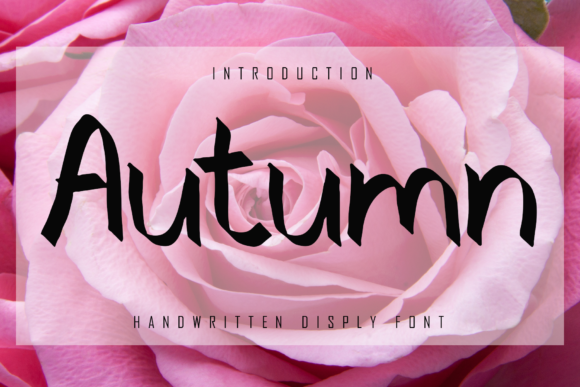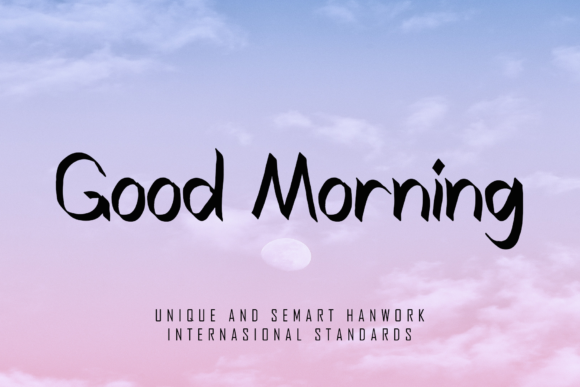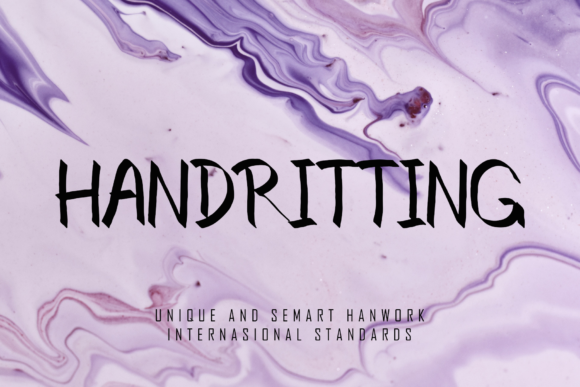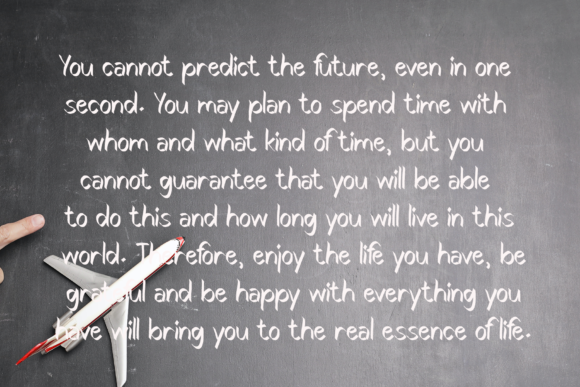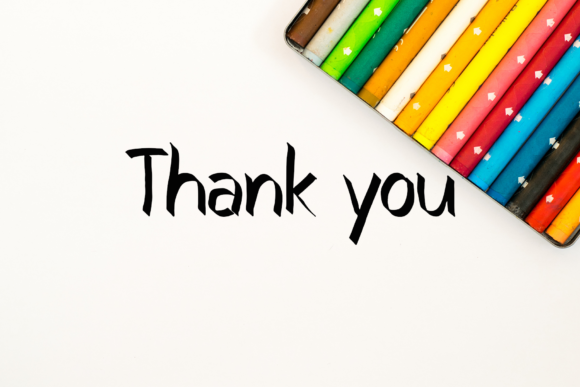
Autumn Font
About Autumn Font
Antumn is a cute and unique handwritten font. A little bit quirky, this font looks incredibly adept on a wide variety of contexts!